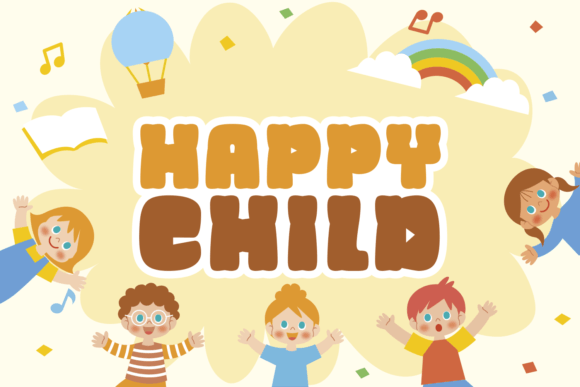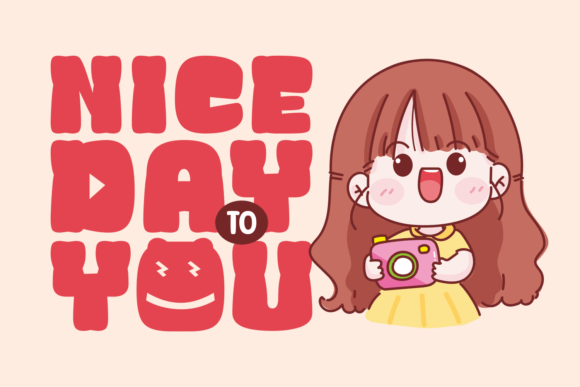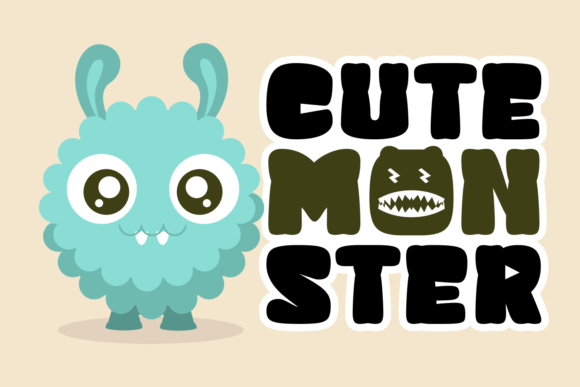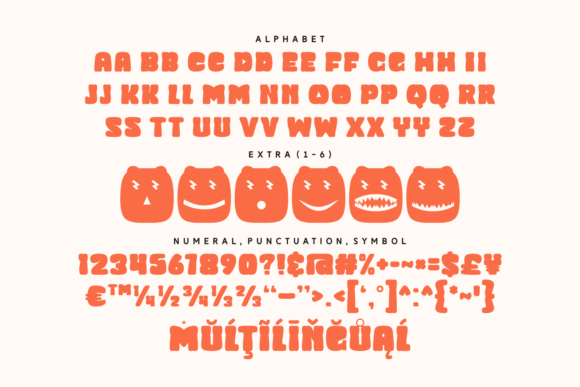
Introduction to One Hope Font
Remember the moment when you were brainstorming ideas for your next design project, and you just couldn’t find the right font to bring it all together? That’s exactly what happened to many designers when they stumbled upon the One Hope Font, a playful and charming display font that adds a touch of whimsy to any design.
With its big, bright characters and bouncy curves, the One Hope Font is the perfect design resource for anyone looking to add a little extra fun to their creative project. Whether you’re working on a design for a children’s book, a party invitation, or a social media graphic, this high-quality font is sure to bring a smile to your face and a touch of personality to your design.
Key Features of One Hope Font
- Unique and elegant design, perfect for use in branding, logos, and other visual identity projects.
- Supports various languages, making it a versatile choice for international design projects.
- Designed to be highly legible, with a clear and consistent font style, suitable for body text and headings.
- Can be easily customized and modified to fit the specific needs of your creative project.
Honest Review: One Hope Font
I recently came across the One Hope Font, and I must say it’s a great addition to any designer’s toolbox. As a design resource, it offers a lot of potential for creative projects. One of the standout features is its transparent background, which makes it easy to use in various design scenarios.
What works well: ✨ High-quality design, versatile font style, and a wide range of applications. The font is perfect for both digital and print projects, and its modern design makes it a great choice for creative professionals.
- Perfect for logos, branding materials, and website design
- Can be used for a wide range of creative projects, from editorial design to advertising
- Highly customizable and easy to edit
Limitations: ⚠️ While the font is high-quality, it may not be suitable for very complex or intricate designs. Additionally, some users may find the font a bit too minimalist for their taste.
Overall impression: I’m impressed with the One Hope Font, and I think it’s a great addition to any designer’s collection. With its transparent background and high-quality design, it’s perfect for a wide range of creative projects. I highly recommend it as a free download for designers looking for a reliable and versatile font.
Tips for Getting the Most Out of One Hope Font
Use One Hope Font in combination with other design elements, such as images and graphics, to create visually appealing and engaging designs. Experiment with different font sizes and styles to add depth and emphasis to your text. One Hope Font is also a great resource for creating social media graphics, flyers, and brochures.
One Hope Font is suitable for a wide range of creative projects, including:
– Presentations and reports
– Flyers and brochures
– Branding and marketing materials
– Educational and informative content
Pacifico Font is a beautiful, elegant script font that’s perfect for design projects that require a touch of sophistication and elegance. It’s a great alternative to One Hope Font for those looking for a more refined and high-quality design resource.
Q: Does the One Hope Font have a transparent background?
No, the One Hope Font does not have a transparent background. It’s a solid font with a unique design that’s perfect for various creative projects, including graphic design, digital art, and print media.